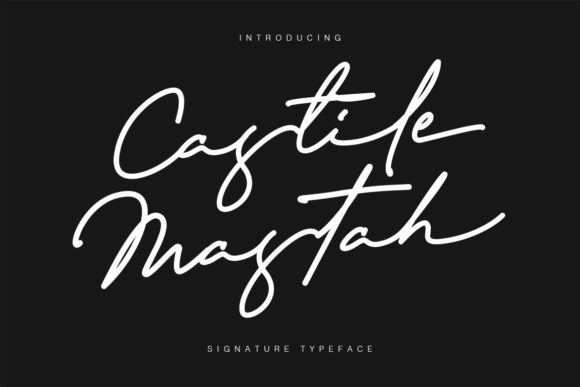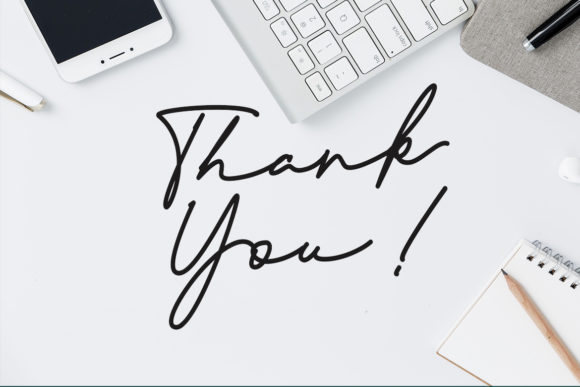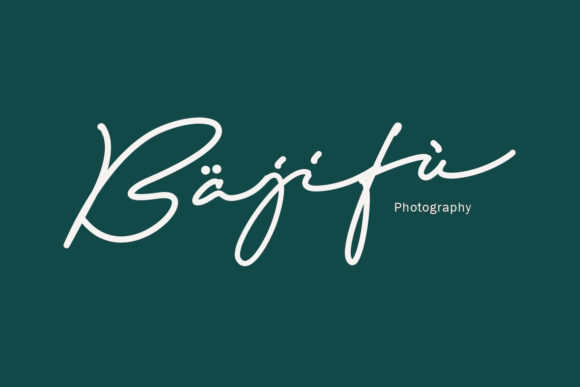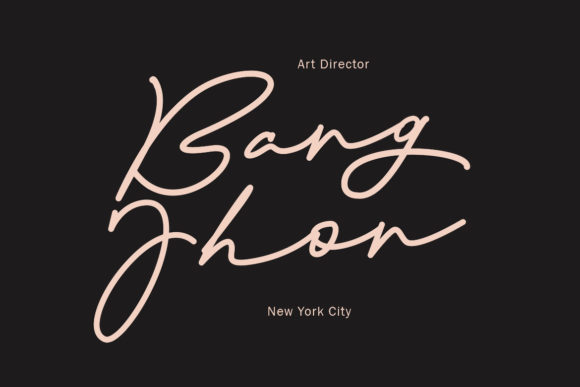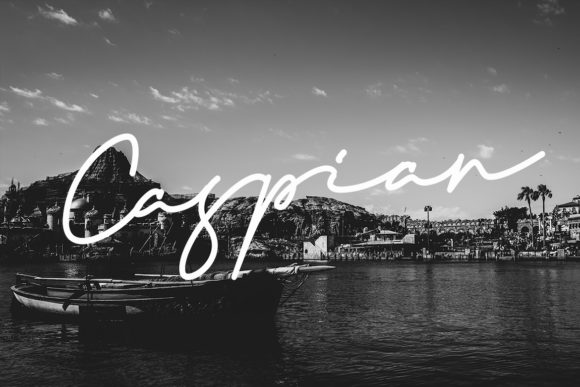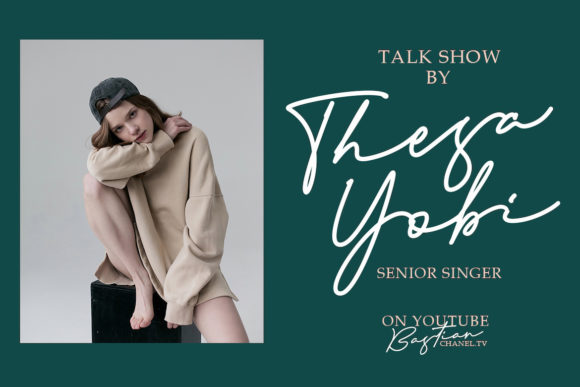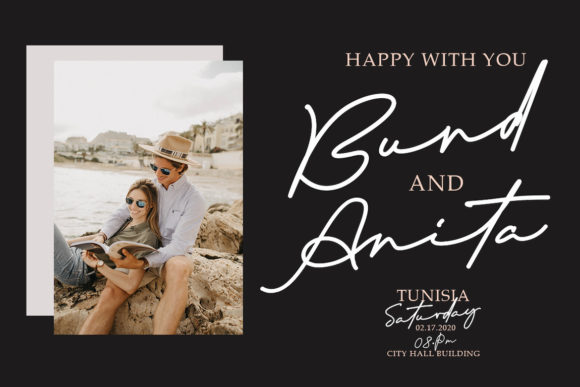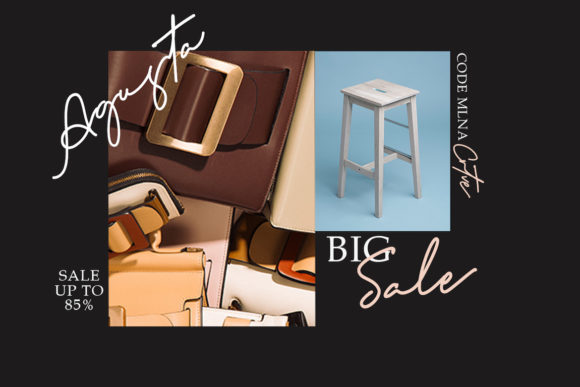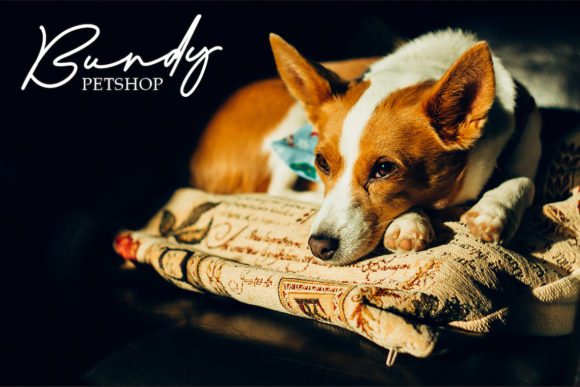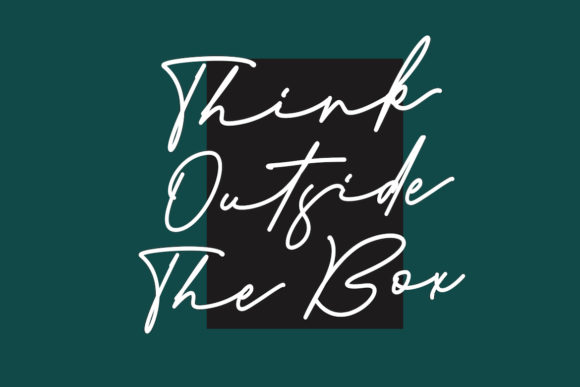
Castile Mastah Font
About Castile Mastah Font
Castile Mastah is a script font perfectly suited for signatures, logos, typography quotes, magazines or book covers and much more.
This awesome font will give your designs an authentic handcrafted feel.
Includes Stylistic Alternates and Ligatures.